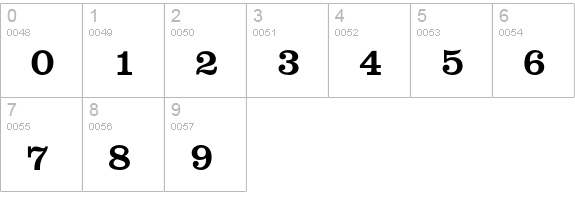
ClarendonEF-Medium is a balanced, medium-weight variant in the ClarendonEF typeface family \xE2\x80\x94 well suited to sub-headlines, navigation, and balanced editorial work.
ClarendonEF-Medium font is a timeless and versatile typeface that exudes elegance and sophistication. With its classic design and strong presence, this font is perfect for a wide range of projects, from branding to editorial design. The medium weight strikes the perfect balance between boldness and readability, making it ideal for both headlines and body text. Best of all, ClarendonEF-Medium font is available for free download at FontsMarket.com. This means you can easily access and use this premium font in your projects without any cost. So why wait? Enhance your designs with the beauty and reliability of ClarendonEF-Medium font today!